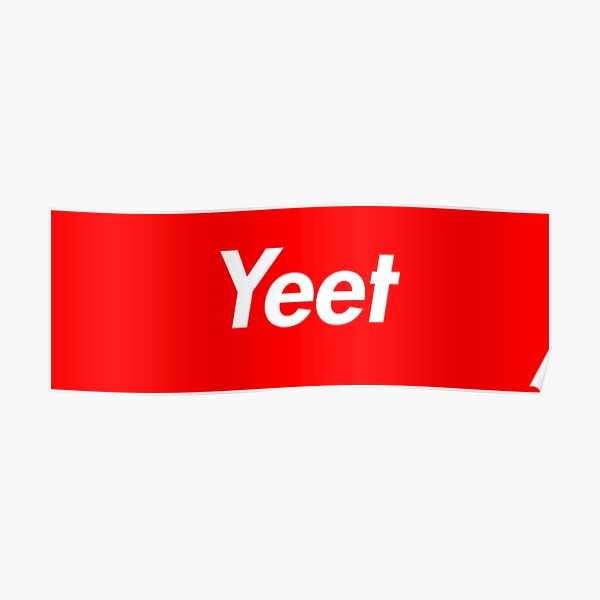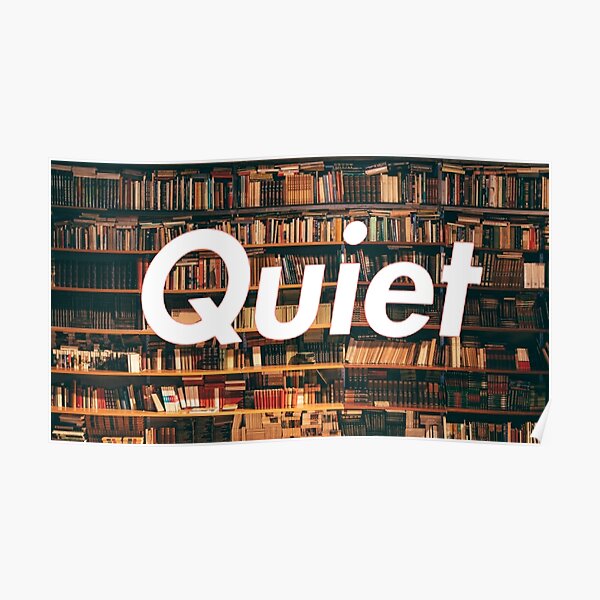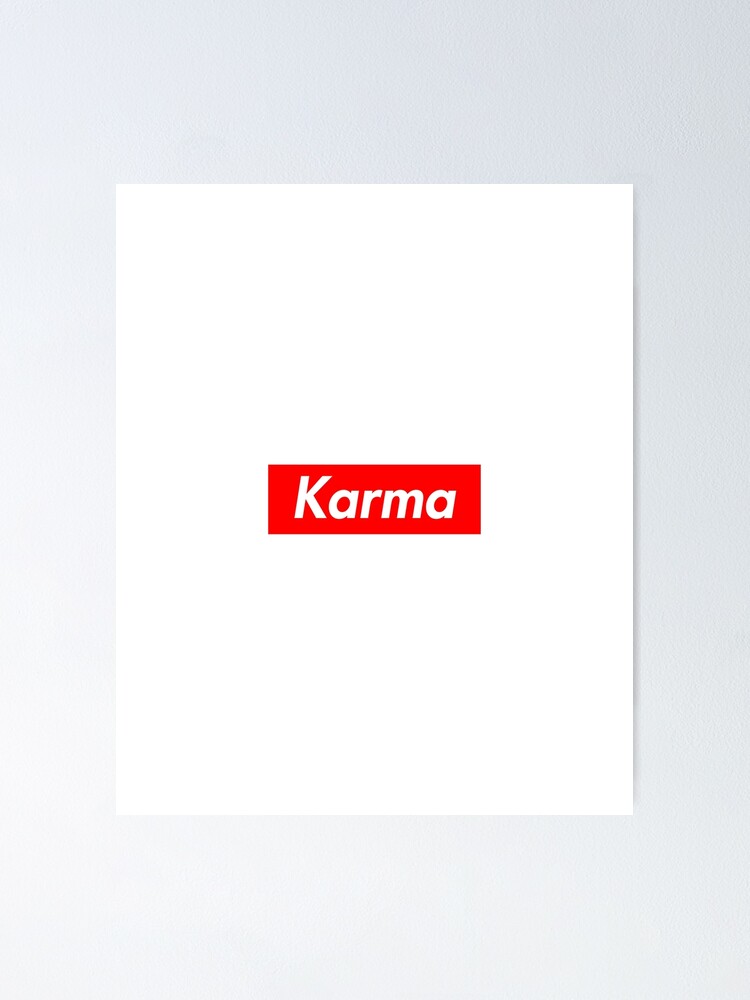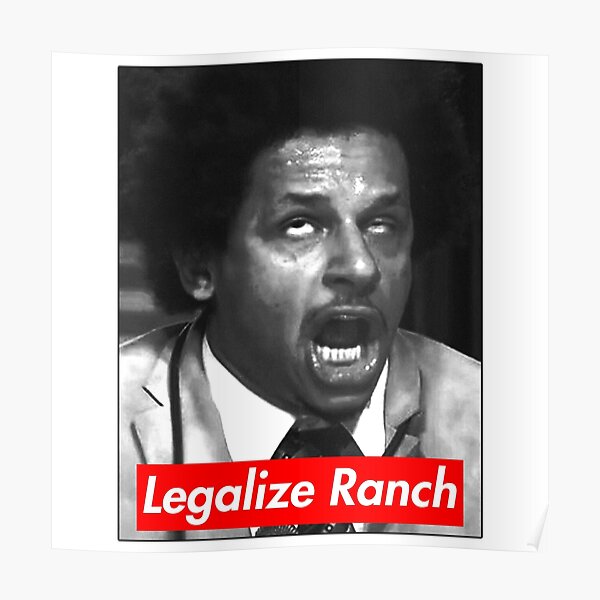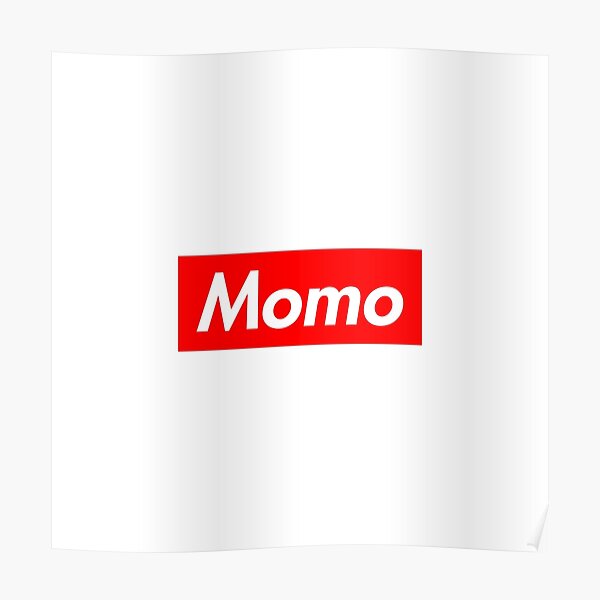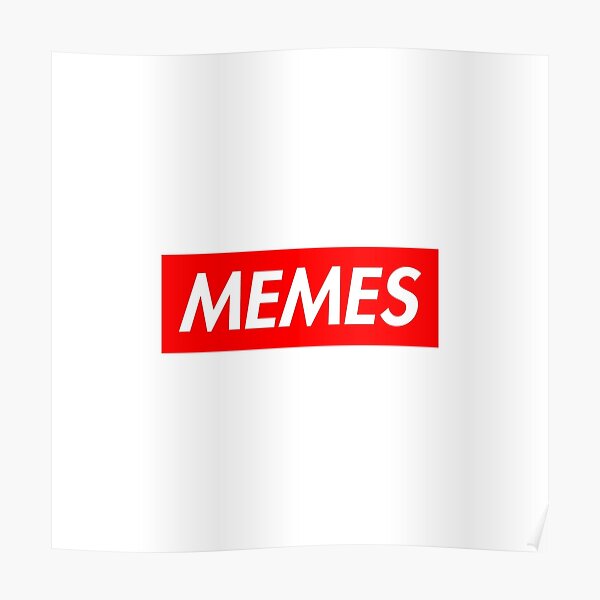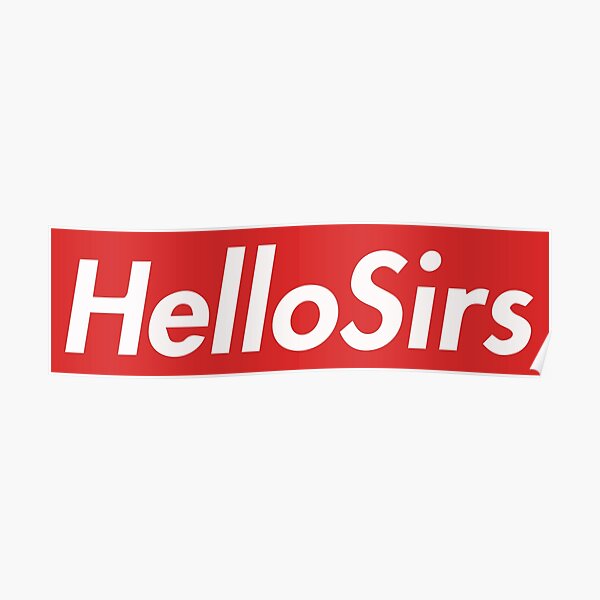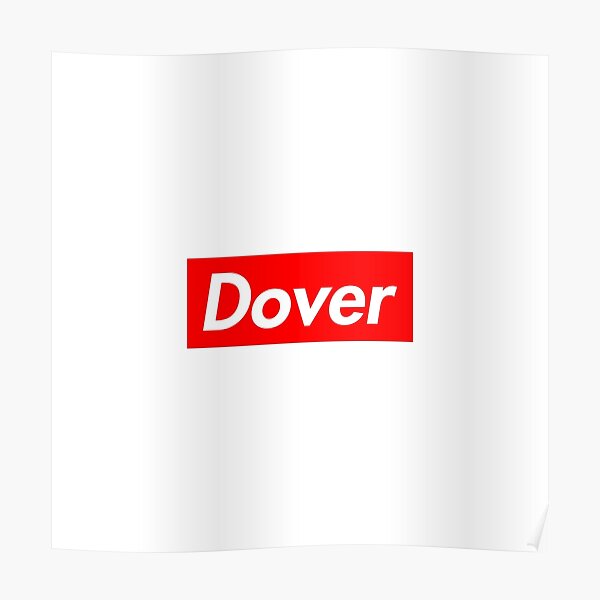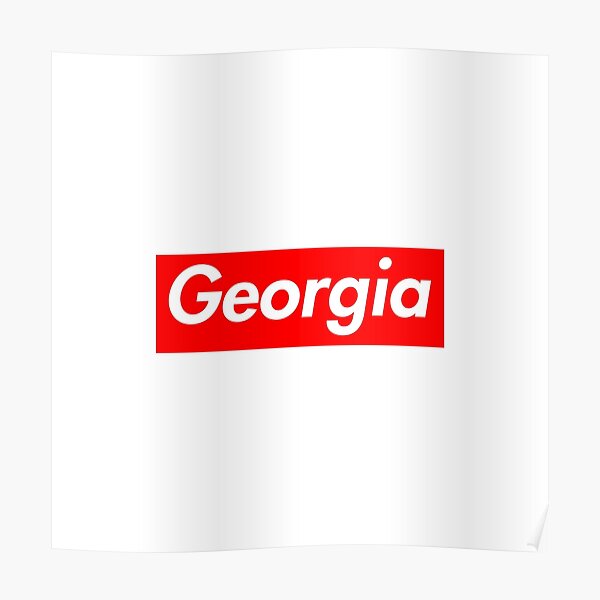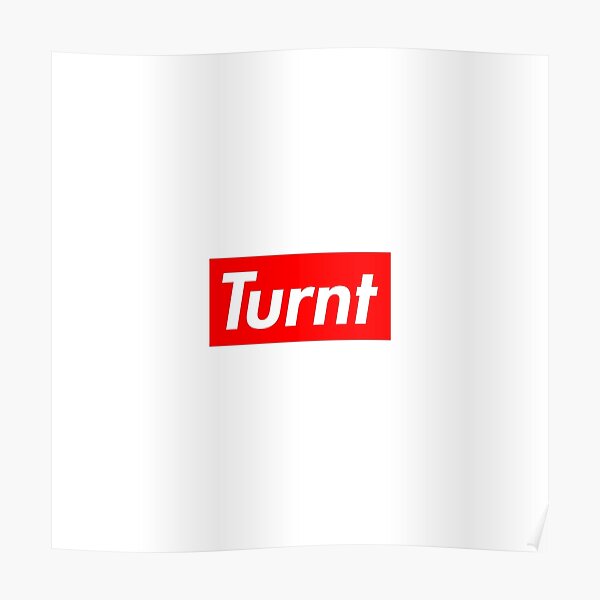
Custom Supreme Font
Custom supreme font. The titles of the tv sequence the huge bang thought are all produced in rage italic. All you have to do is write your text inside the textbox preview the image and download it. This font belongs to typeface font family.
Try it for free. Enter your supreme message. The font used for its logotype is similar to futura bold italic.
The logo of supreme is simply its logotype portrayed in white on a red background. Supreme logo generator made with by thomas and justin. Browse supreme logo designs below or create your own supreme logo using our online logo maker.
Supreme is an apparel brand established in ny city. The font used for its logotype is very similar to futura bold italic. Supreme is a clothing brand founded in new york city.